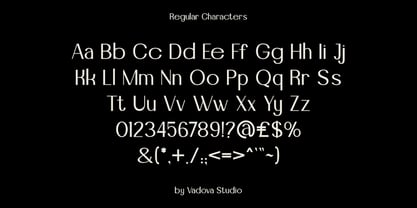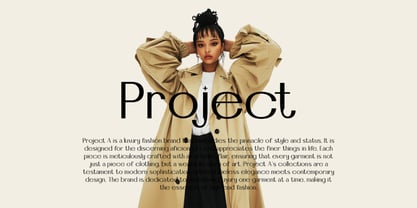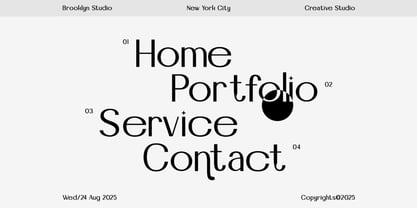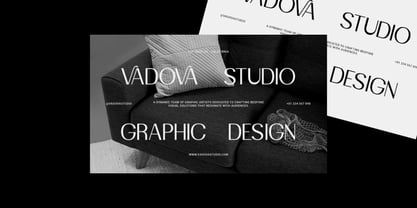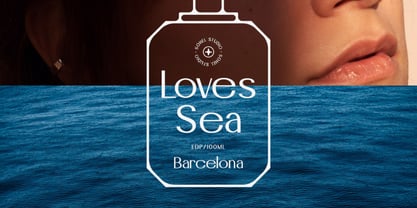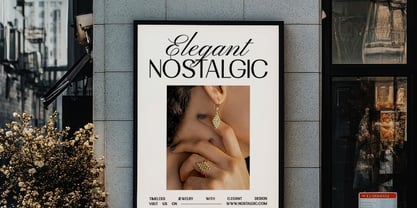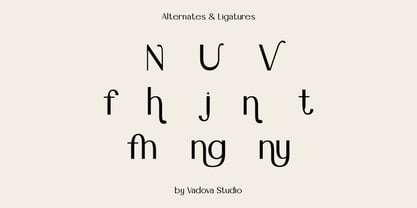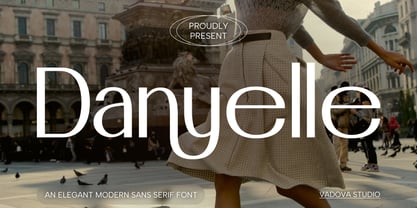
Danyelle
The Danyelle Font Family and published by Vadova Std. Danyelle contains 1 styles. More about this family
Danyelle Elegant Modern Sans Serif is a refined modern sans serif typeface with a fashion-forward flair, designed for brands that value precision, grace, and distinction. Its beautifully crafted ligatures and clean geometric forms give it a stylish yet timeless character ideal for luxury packaging, lifestyle branding, or high-end advertising. With multilingual support and a balance of clarity and artistry. Danyelle shines across various applications: from perfume labels and jewelry campaigns to digital portfolios, posters, and social media graphics. Whether you're crafting runway visuals or brand identity for a design studio, this font brings elevated modernity to every layout.